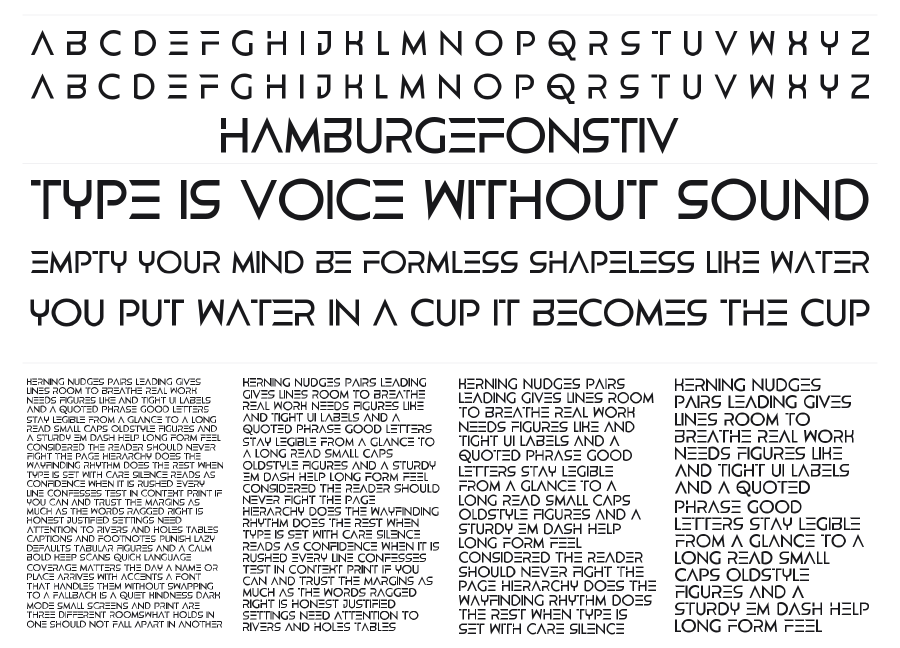
Enclave
Enclave is a wide geometric sans with strategic interrupted strokes that split certain characters into segmented forms, lending the design a distinct sci-fi, engineered quality. The near-monoweight construction and flat terminals keep everything crisp and precise. It reads well at large sizes for titles, logos, and anything that needs a futuristic edge without resorting to heavy distortion.